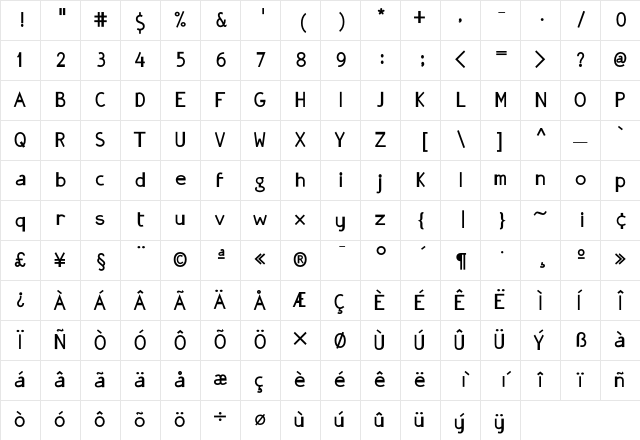
GonzaPlus Bold Free Font
GonzaPlus Bold
Design Context for GonzaPlus
GonzaPlus is a composed and adaptable typeface that performs quietly and consistently across a wide range of design contexts. Its bold stroke weight gives it real presence on the page.
Pro Tip: Use GonzaPlus in both headline and body roles to test its range before committing to a single application.